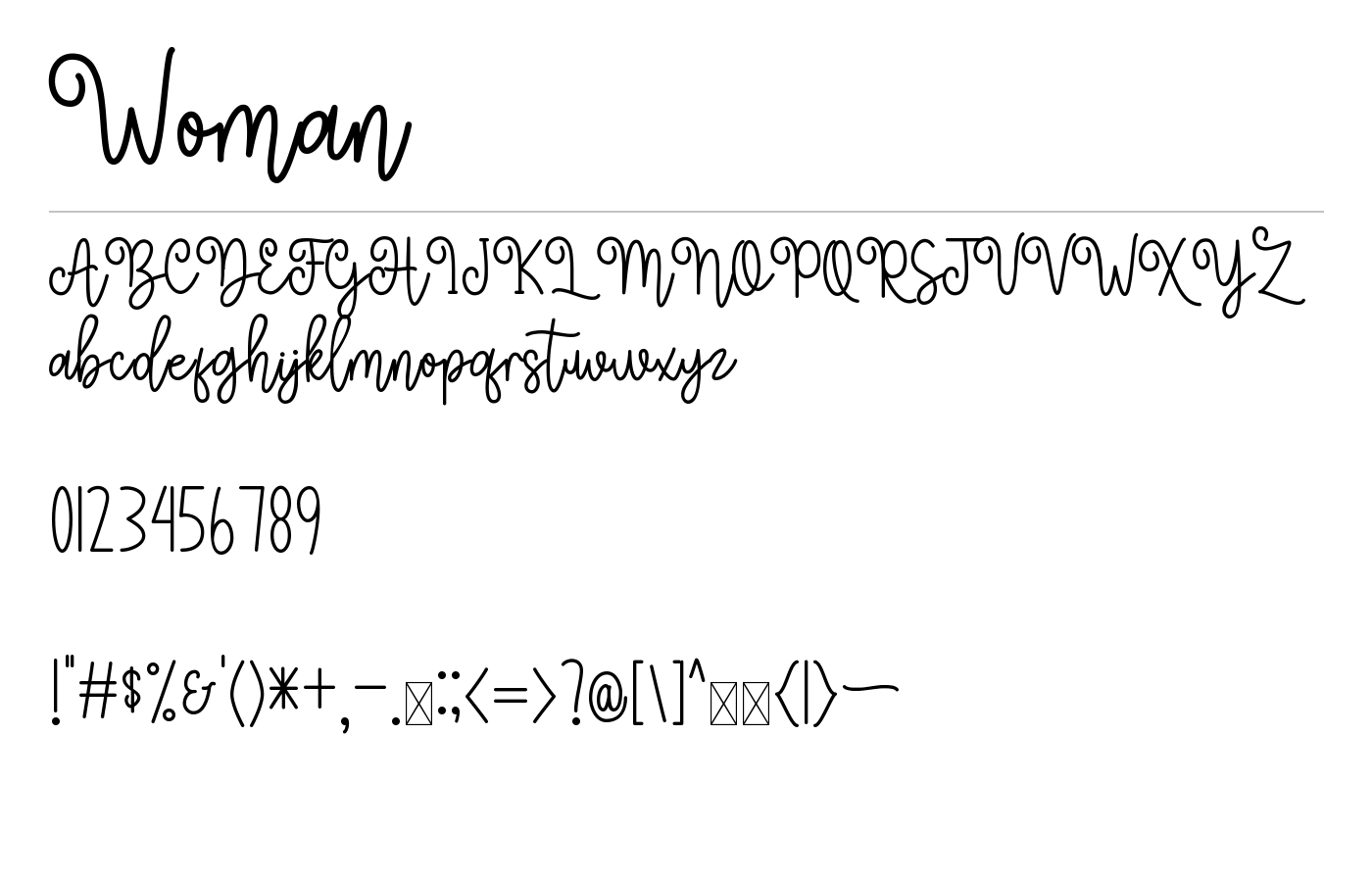
Woman Font is a playful and elegant handwritten script with tall, slender letterforms and charming curls, perfect for adding a whimsical yet refined touch. Its light weight and delicate strokes make it ideal for fashion branding, invitations, or creative projects where a feminine, artistic feel is desired. This font shines best in headlines and decorative uses, bringing personality and a modern handcrafted style to your designs.
Woman Font
About Woman Font